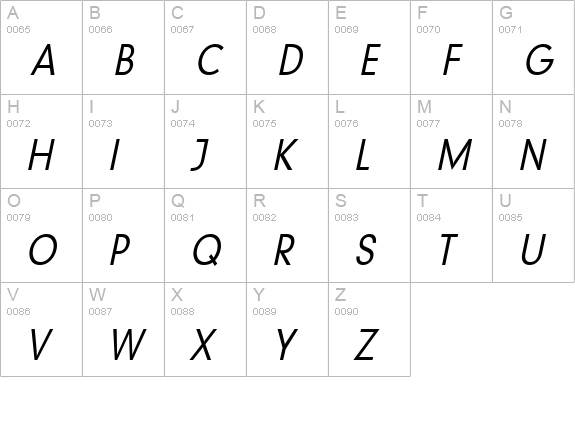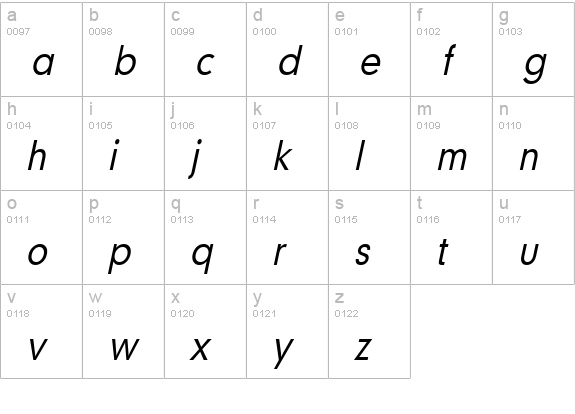
Geo 579 Condensed Italic is a distinctive, condensed-width, italic variant in the Geo typeface family \xE2\x80\x94 well suited to design and typography projects.
Introducing Geo 579 Condensed Italic font - a sleek and modern typeface perfect for adding a touch of sophistication to your designs. Its condensed style and italicized form make it stand out, making it ideal for headlines, logos, and branding projects. The elegant curves and sharp angles of this font create a unique and eye-catching look that is sure to captivate your audience. What's even better is that Geo 579 Condensed Italic font is available for free download at FontsMarket.com. This means you can easily access this stylish font and use it in your projects without any cost. Whether you're a designer working on a client project or a student looking to elevate your assignments, this font is a perfect choice for adding a touch of elegance and professionalism to your work. Don't miss out on the opportunity to enhance your designs with the beautiful Geo 579 Condensed Italic font. Download it for free today and start creating stunning visuals that will leave a lasting impression.